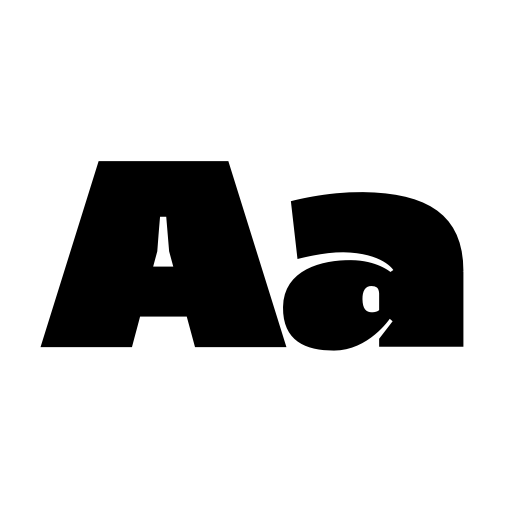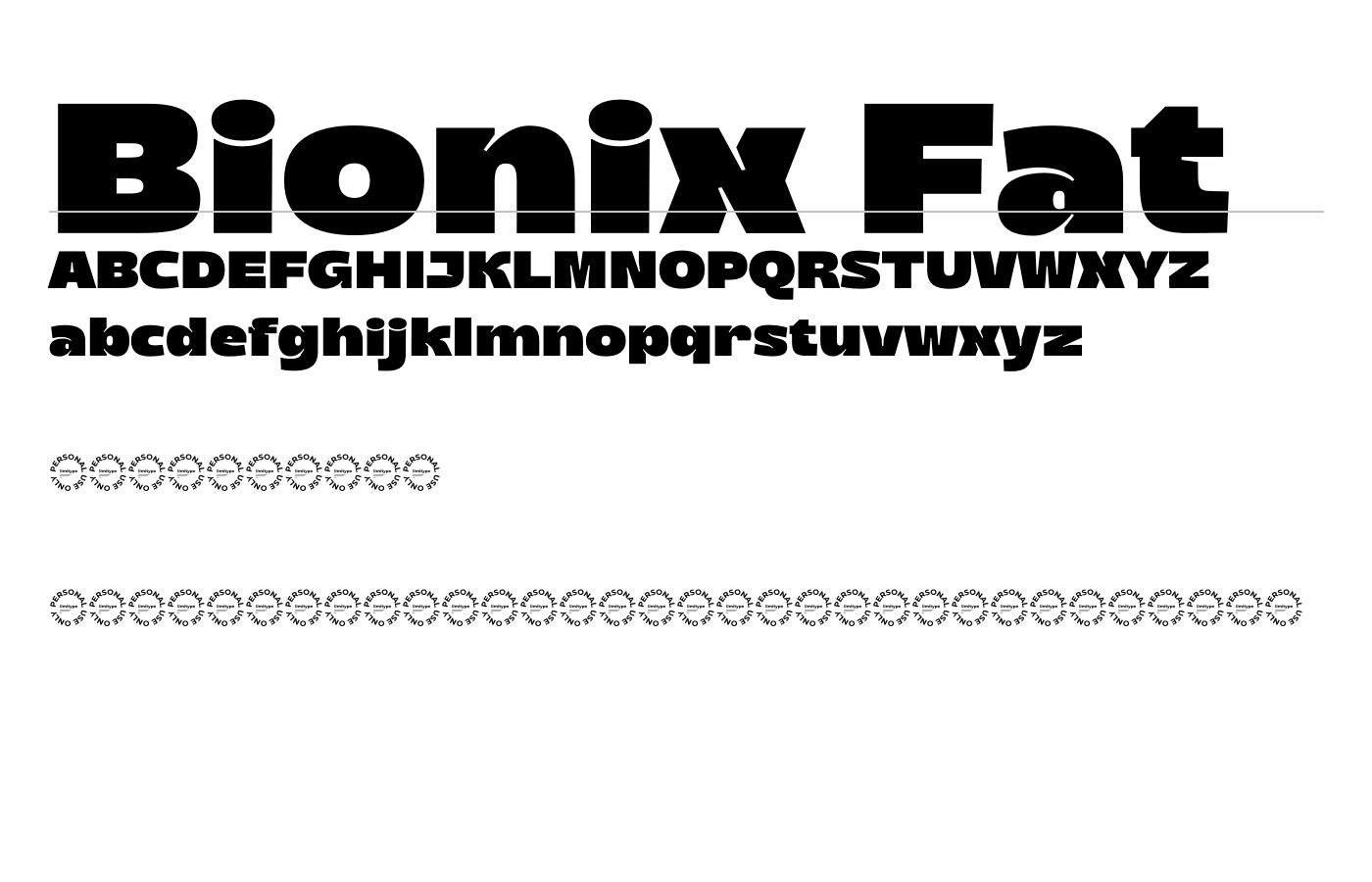
Bionix Font is a bold, heavy-weight sans serif typeface with a strong, blocky presence and wide letterforms that command attention. Its high x-height and solid strokes give it a powerful, modern feel, making it ideal for impactful headlines, logos, and branding where strength and clarity are key. This font’s distinctive geometric shapes and sturdy construction make it perfect for designs seeking a bold, confident look.
Bionix Font
About Bionix Font